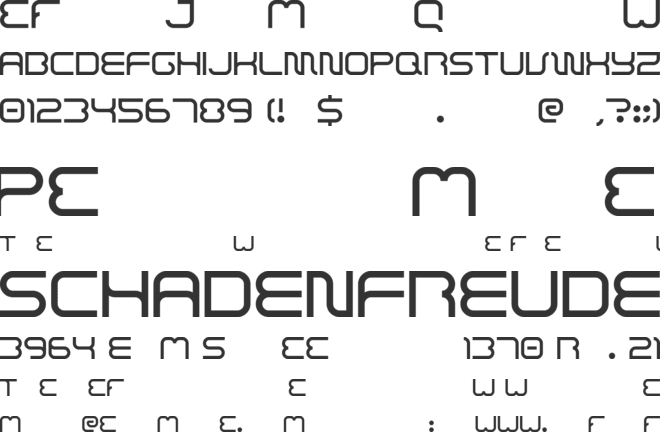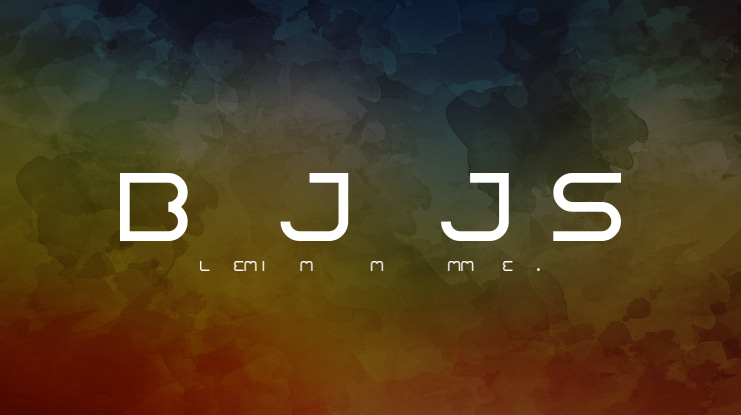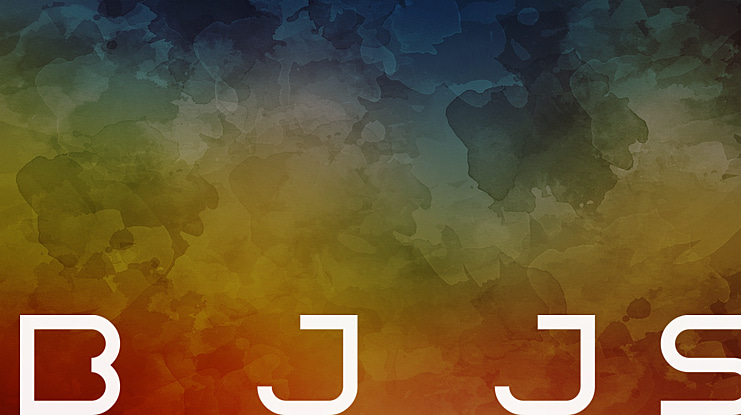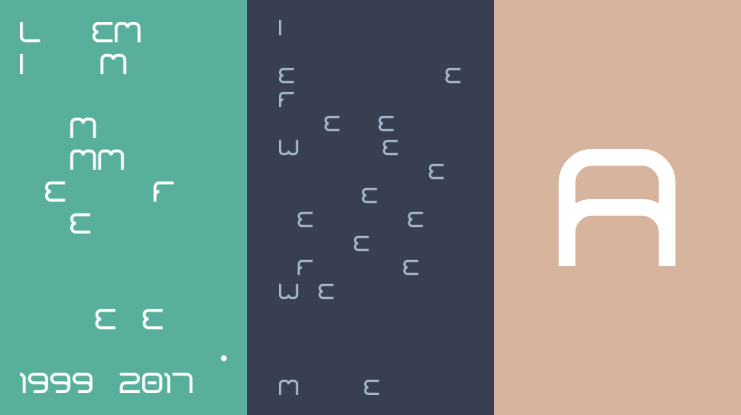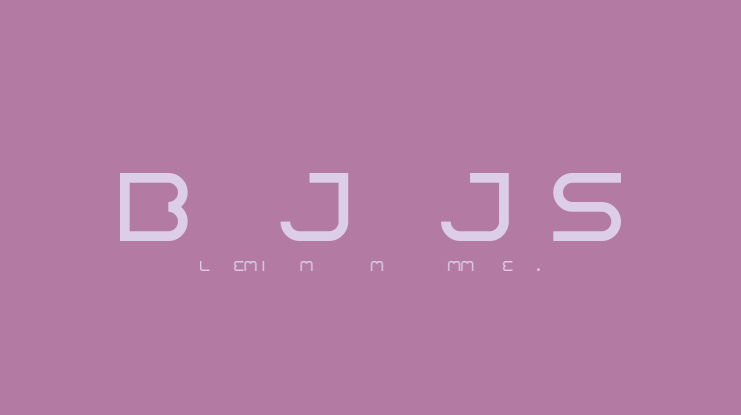
Bajaj Sans Font
Inspired by a well known classic public vehicle in my home town, BAJAJ! And... if you want to use it commercially, please contact me first :)